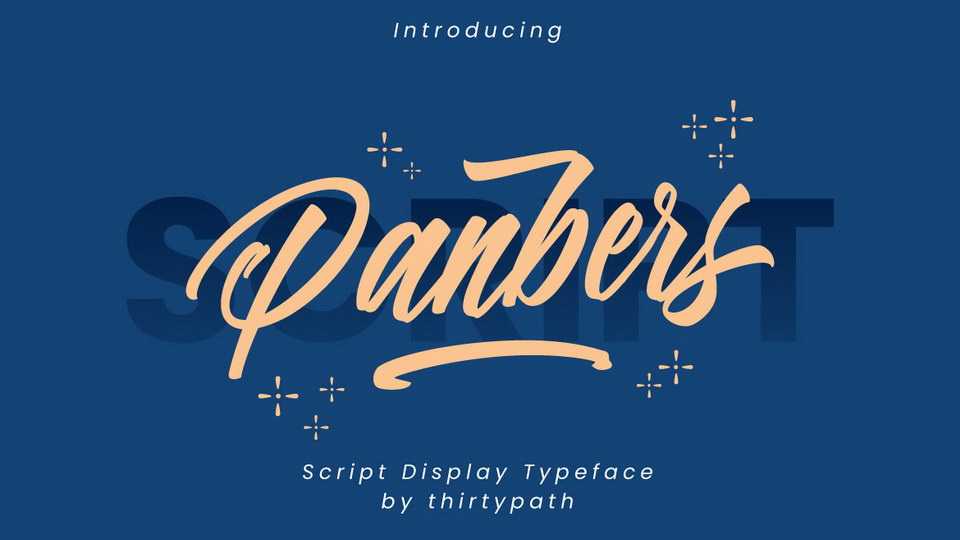
Download Panbers Script font a display handbrush typeface, simple and easy to create awesome lettering, just type your words and then you will immediately see the great results.
Designer: Thirtypath